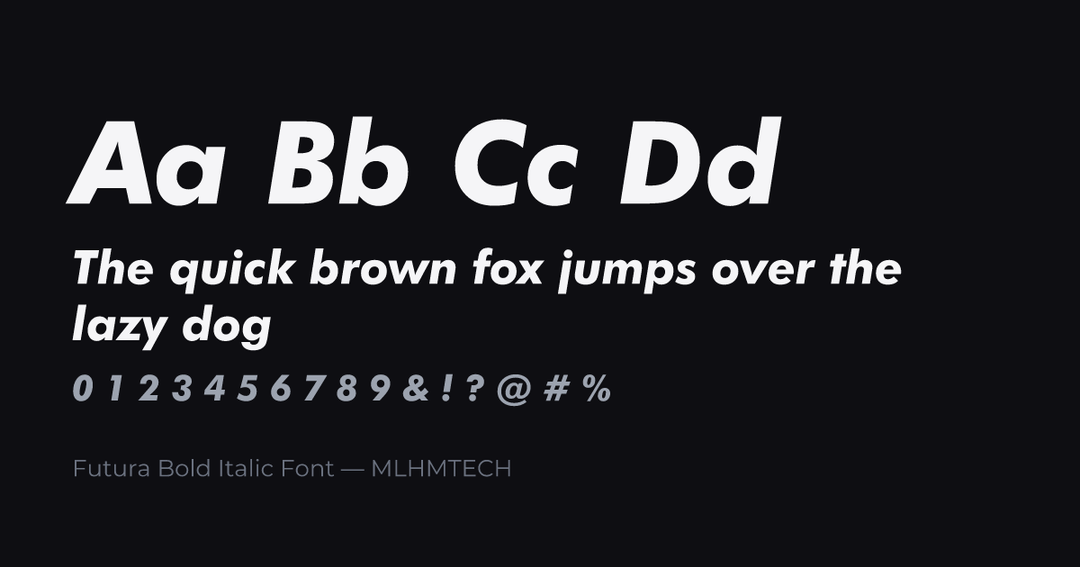
Futura Bold Italic Font
Futura Bold Italic is a geometric sans-serif typeface with a dynamic slant, ideal for headlines, logos, and modern branding.
Futura Bold Italic combines the timeless geometry of Futura with a dynamic italic slant, adding energy and movement to your designs. Its bold weight ensures strong visibility, making it perfect for headlines, posters, and branding materials.
This font is a versatile addition to any designer's toolkit. Use it to create impactful titles, eye-catching logos, or to add a touch of sophistication to your editorial layouts. The clean lines and modern feel work well in both print and digital media.